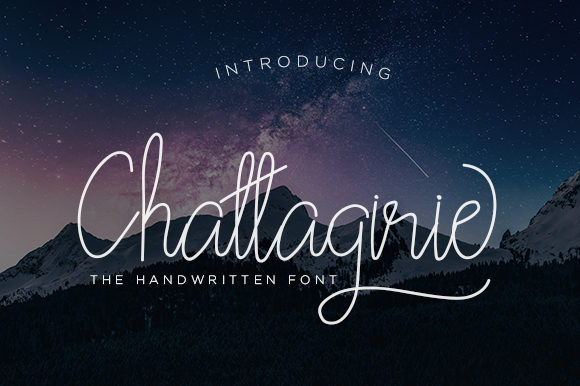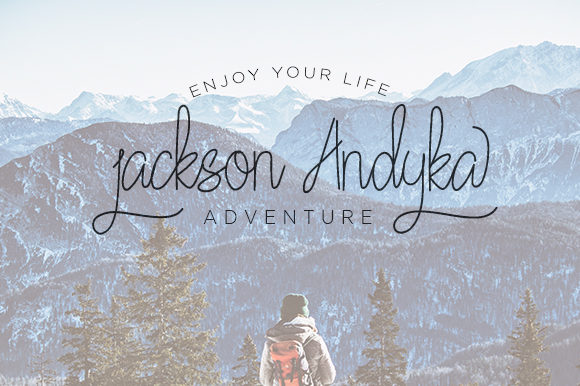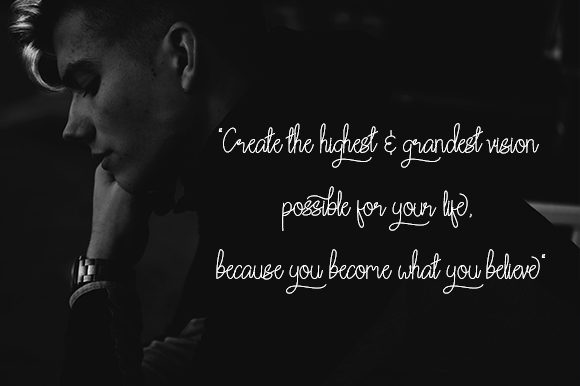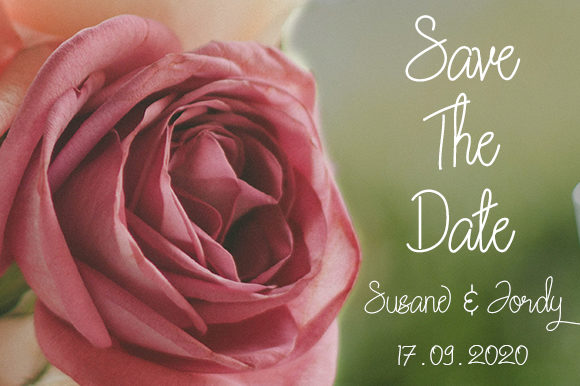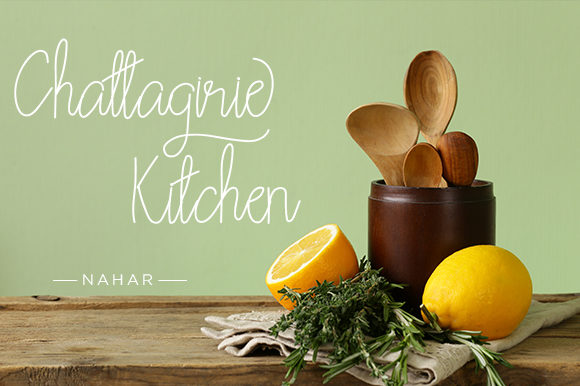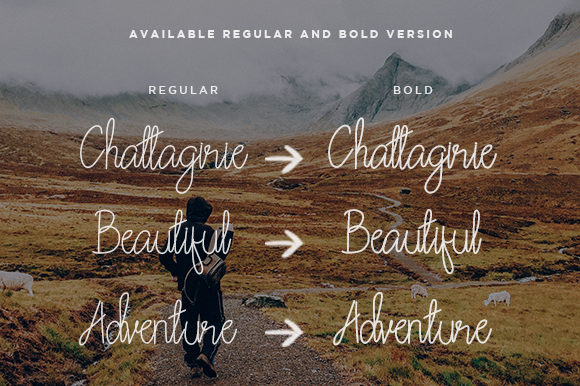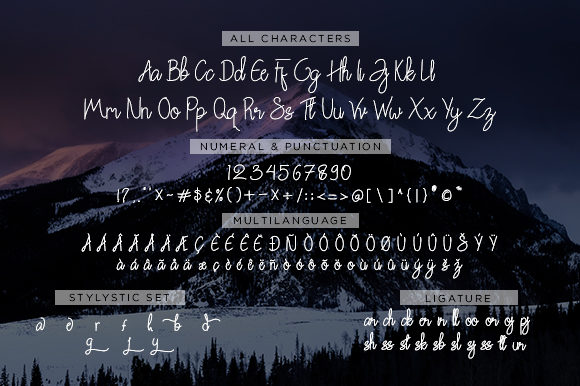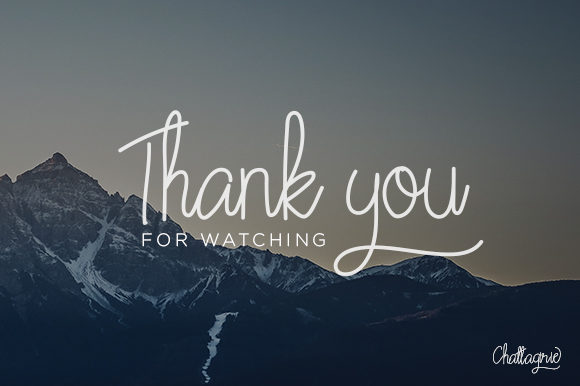
Chattagirie Script Font
About Chattagirie Script Font
The Chattagirie is an amazing handwritten font. It has a natural writing style with a good readability. It’s suitable for logos, branding projects, homeware designs, product packaging, mugs, and all your other lovely projects that need handwriting taste.